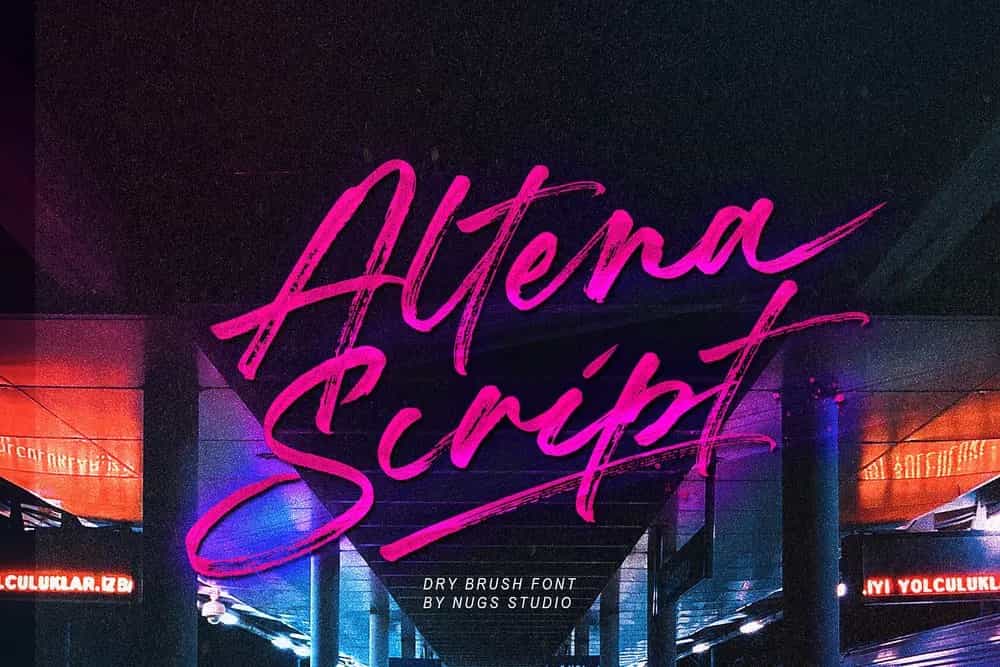
Altena Font
Altena is a brush font in italic with a contemporary feel, and a natural hand designed baseline that is uneven. Ideal for using in landing page designs, quotes, branding and logos, packaging designs, posters, album music and much more.